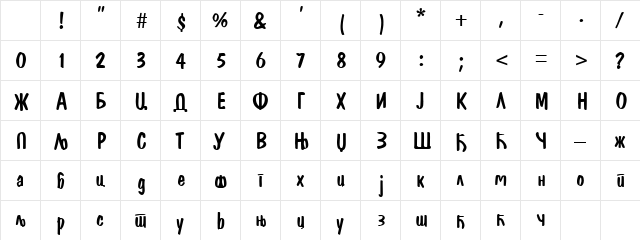
C_Dawn Castle Regular Free Font
C_Dawn Castle Regular
C_Dawn Castle Family
Complete C_Dawn Castle Regular glyph index. Displaying only characters natively supported by C_Dawn Castle Regular font.
Design Context for C_Dawn Castle
C_Dawn Castle is a composed and adaptable typeface that performs quietly and consistently across a wide range of design contexts.